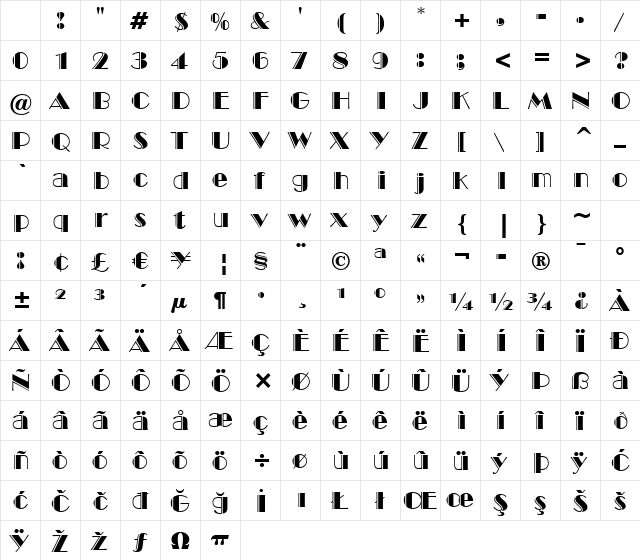
BroadwayEngraved BT Engraved
Style: Engraved
BroadwayEngraved BT Family
BroadwayEngraved BT Engraved
Design Context for BroadwayEngraved BT
BroadwayEngraved BT is built around its visual character rather than neutral utility - its distinctive forms are designed to make an impression at display sizes.
Font Pairing: Pair with a clean neutral sans-serif for body copy to let BroadwayEngraved BT's character lead without overwhelming the composition.
Pro Tip: Use BroadwayEngraved BT exclusively at display sizes - it was designed to be seen, not read at length. Let a neutral companion handle body copy.